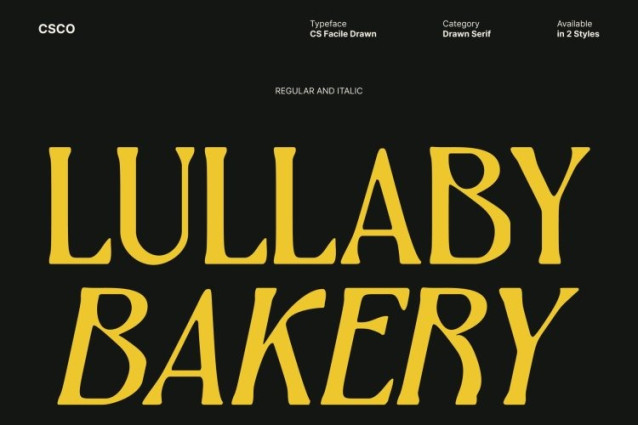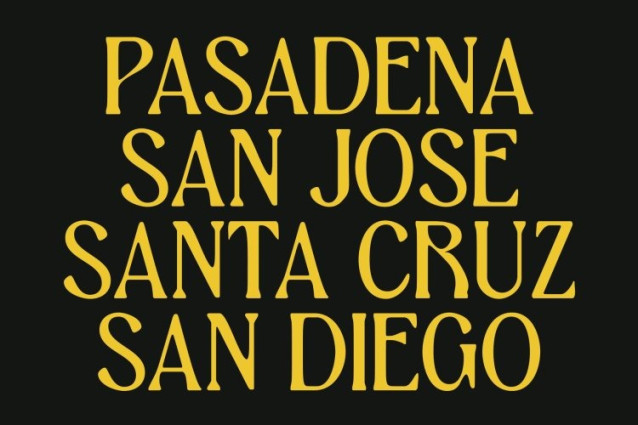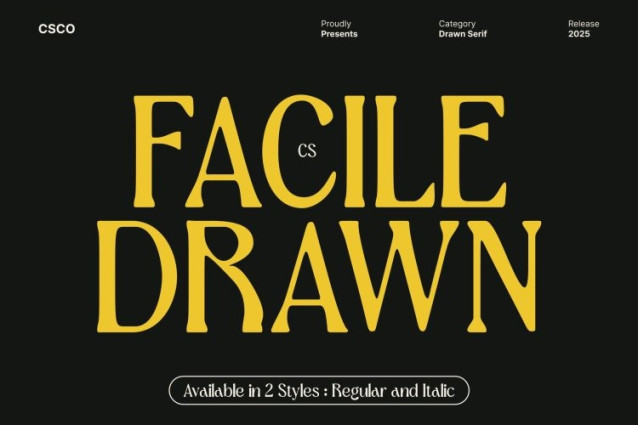
CS Facile Drawn Font
CS Facile Drawn Font – This is a renaissance-inspired display font crafted with ornamental detail and timeless sophistication. Its flourished serifs, classical proportions, and sculpted shapes echo the beauty of historic manuscripts, bringing a sense of grandeur and tradition to modern design. Every letter carries a historical charm that feels both majestic and refined.
Flourished Serifs for Classical Beauty and Impact
The font’s flourished serif structure gives it a distinctive ornamental presence, making it perfect for designers seeking a decorative yet authoritative type style. These elegant flourishes add movement, character, and artistic depth ideal for titles or headings that need to look cultured, expressive, and visually striking.
Hand-Drawn Texture for Authenticity and Warmth
Adding to its expressive form, this font features a natural drawn texture that enhances its handcrafted appeal. This handmade feel gives the type a stamped, organic quality making it look like ink pressed onto paper, just as in traditional calligraphic manuscripts. The result is a font with warmth, personality, and unmistakable authenticity.
Perfect for Book Covers, Posters, and Cultural Branding
This font excels in design projects that value heritage, artistry, and classical influence. Whether featured on book covers, cultural posters, exhibition identities, or historical branding, it delivers a visual tone that feels scholarly, artistic, and culturally rich.